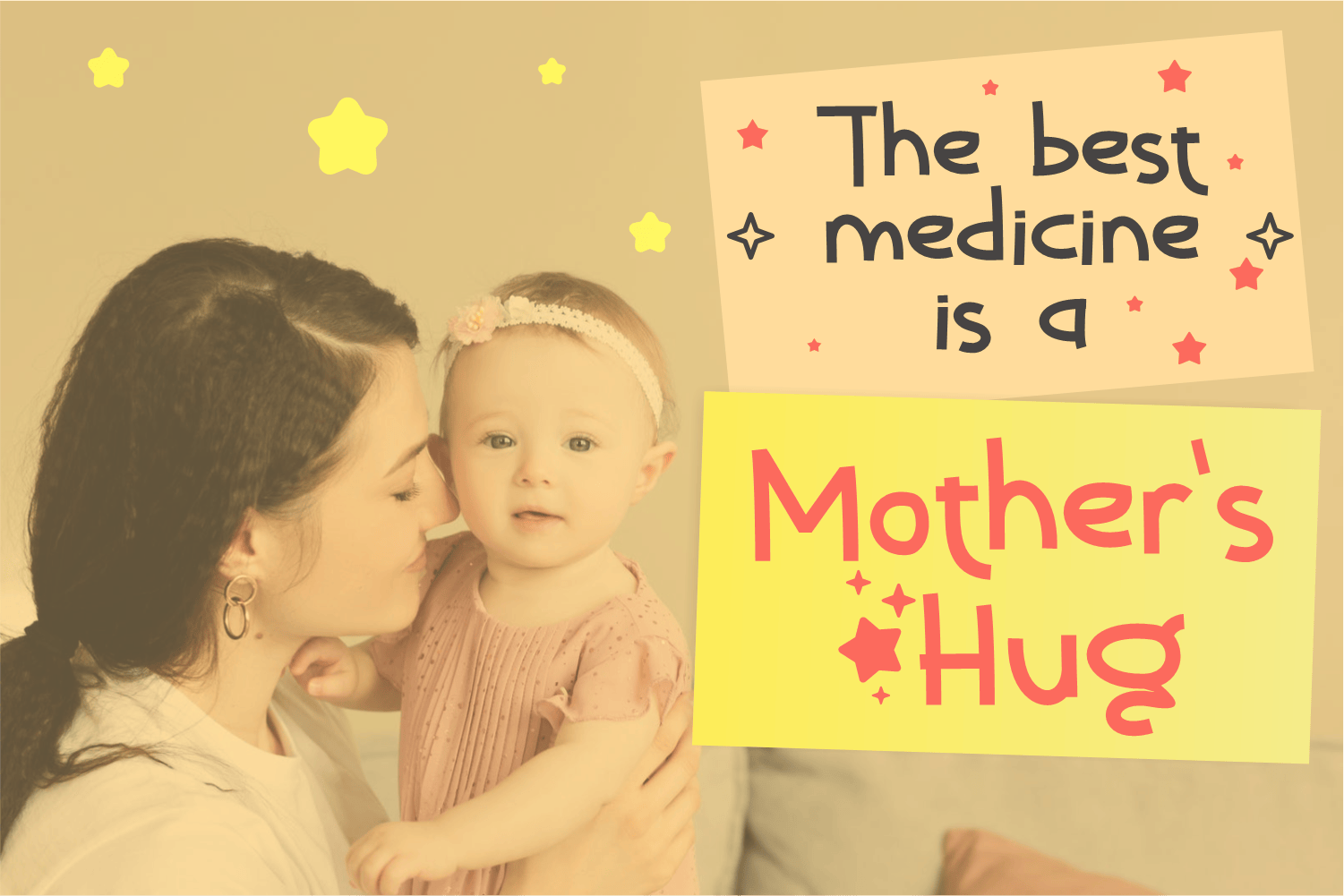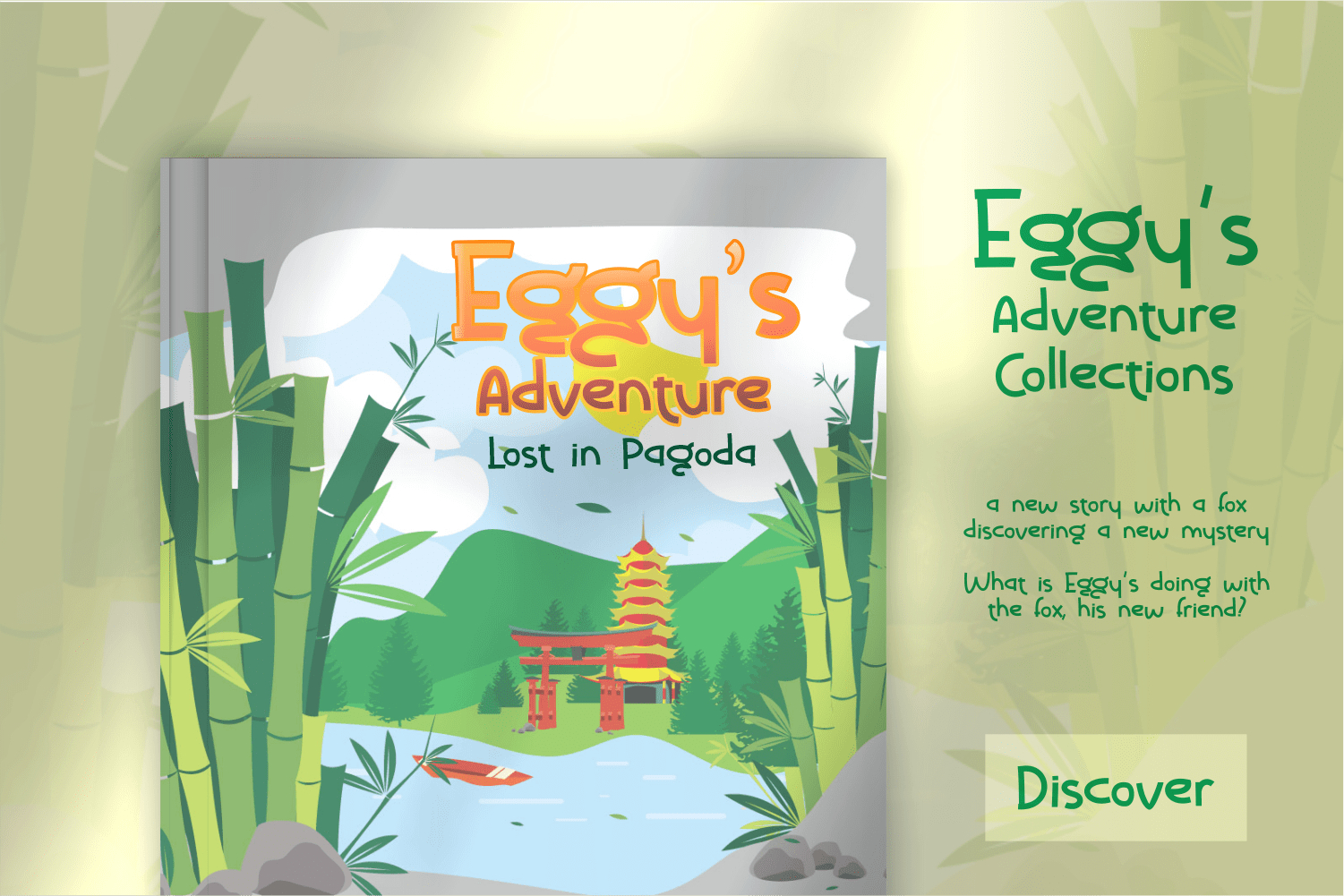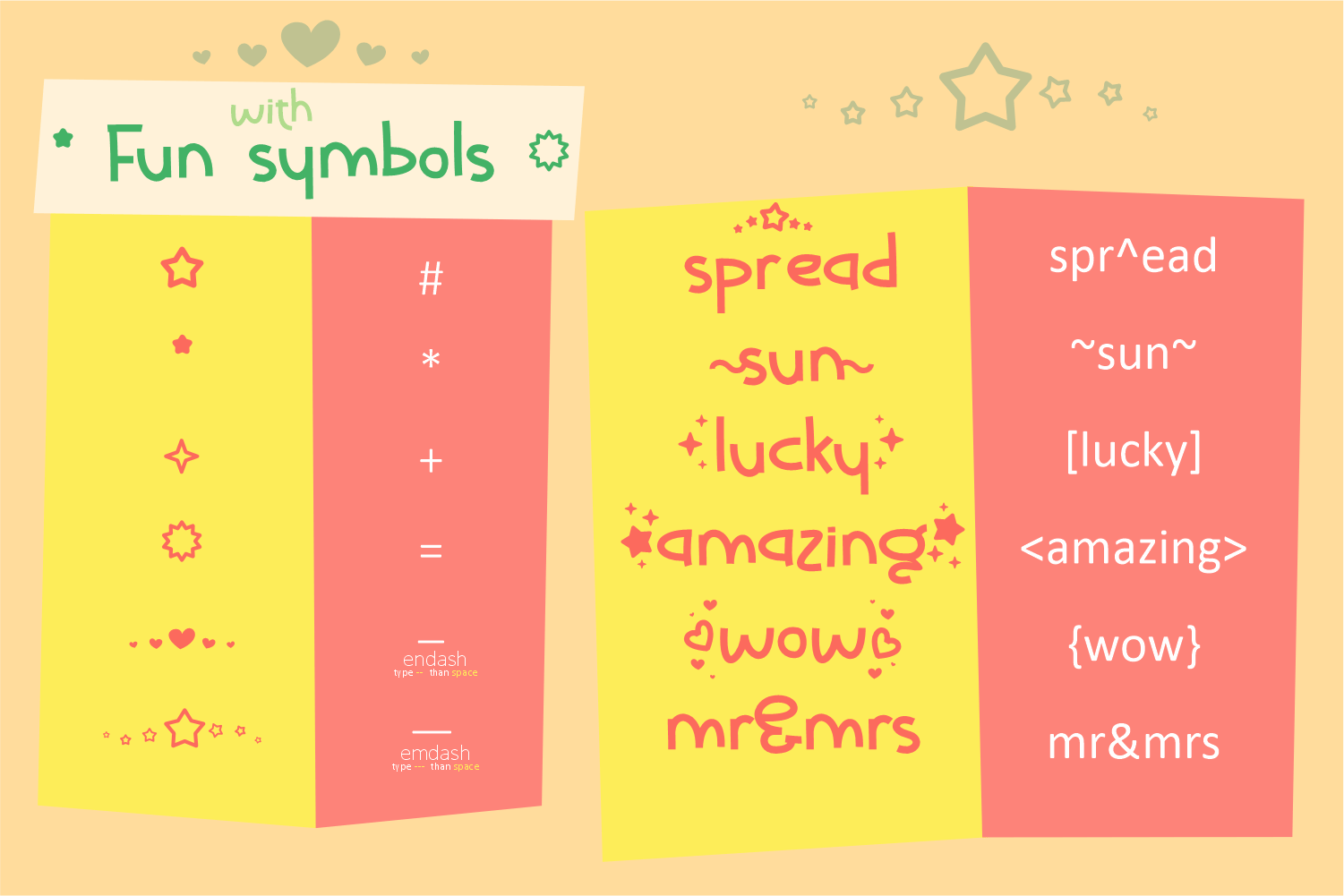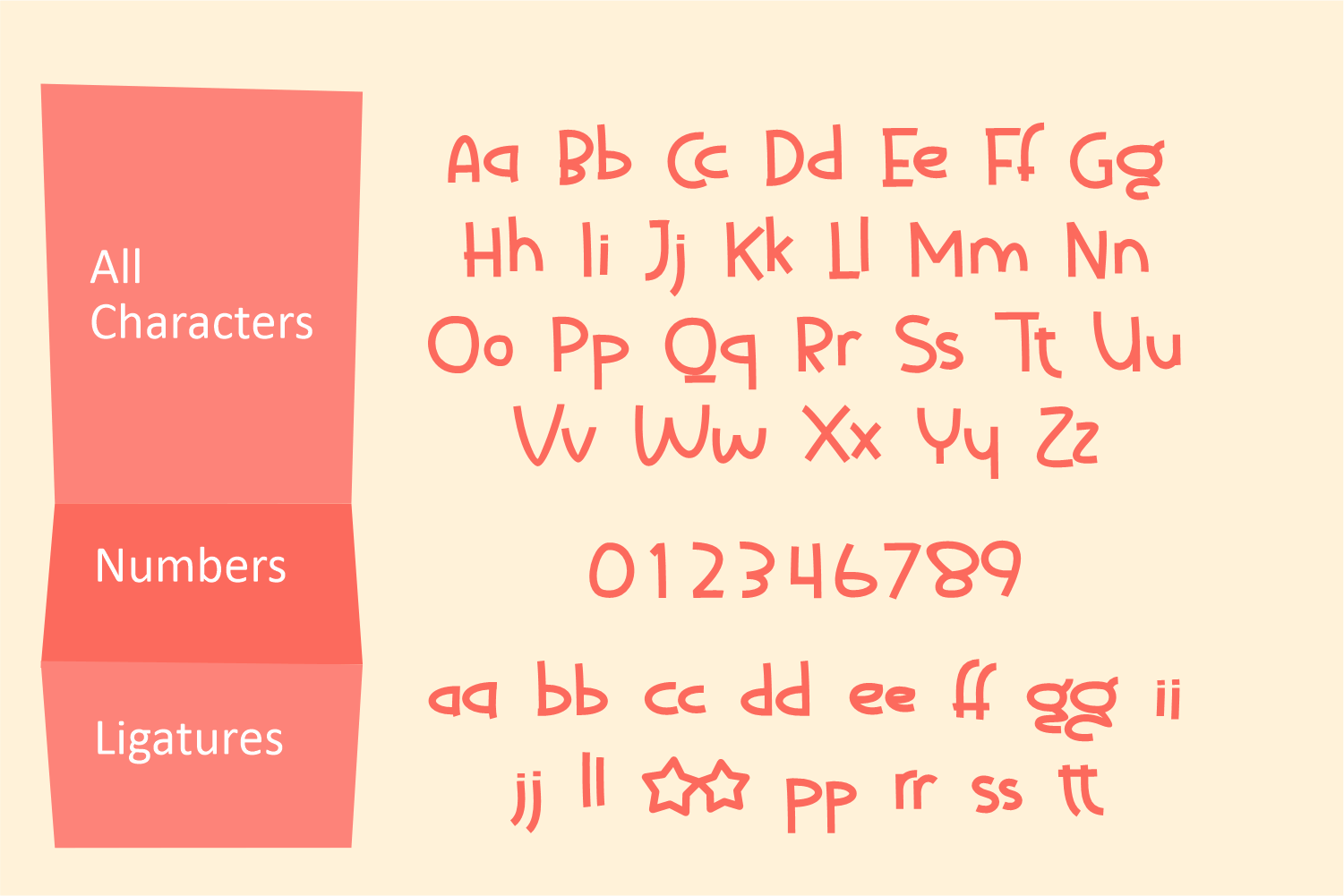
Good Playmate Display Font
This is a unique and cute display font. It looks amazing on kids projects, happy moment decorations, baby births, children books and any other design that requires a happy mood. Add this beautiful font to your creations and take your designs to the next level!